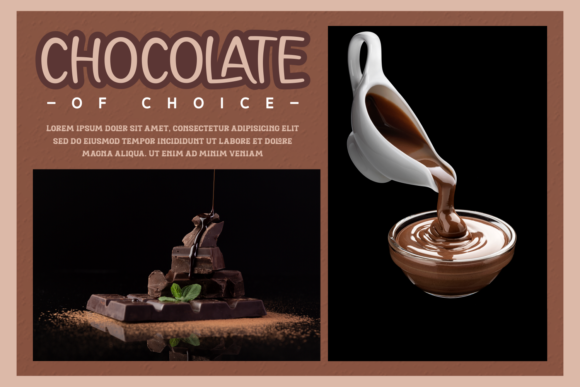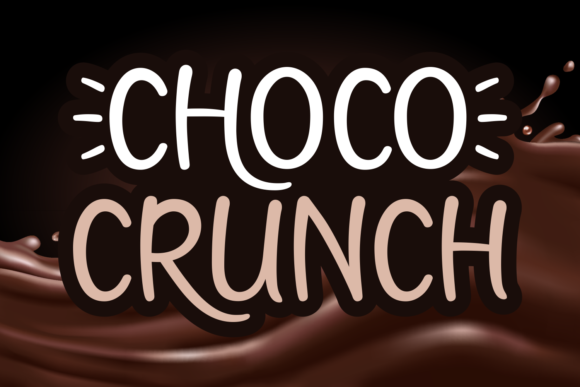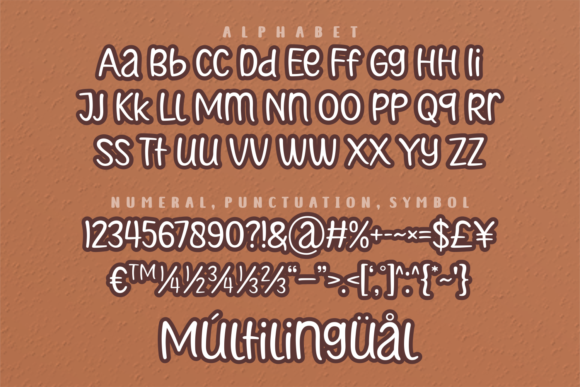
Introduction to Little Choco Font
Little Choco – a slim and cozy display font that will impress you with its versatility.
It looks amazing on food packaging, cafe or restaurant menus, children-related designs, birthday invitations, celebration banners, and more .
Key Features of Little Choco Font
Why Choose Little Choco Font?
Little Choco Font offers exceptional quality and versatility, making it a valuable addition to your design toolkit. Whether you’re creating for personal projects or commercial use, Little Choco Font delivers professional results.